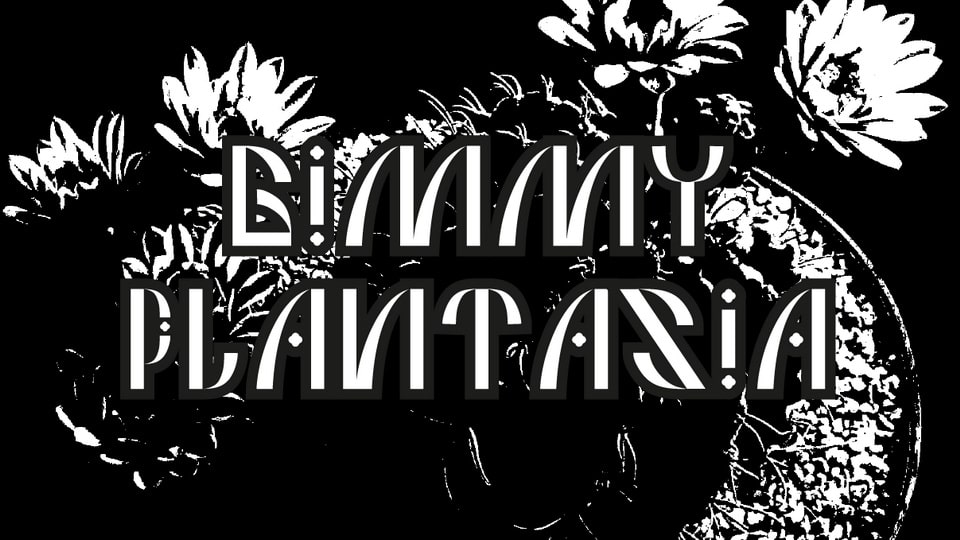
Download Plantacia Gimmy font, a unique display typeface inspired by the Gymnocalycium mihanovichii. Plantasia is a typeface family created by the students of the G5 Communication 360 class.
Designer: Winyan Legrand